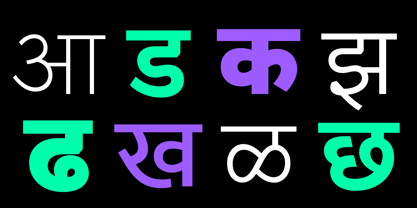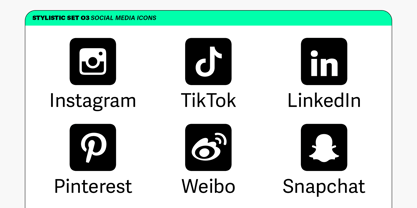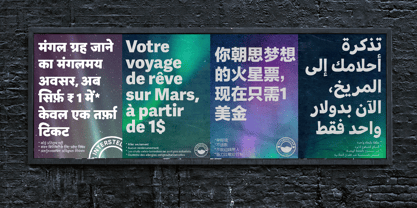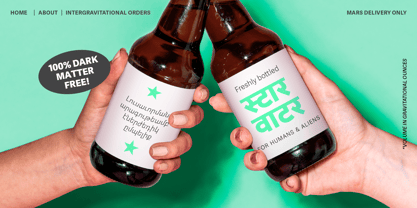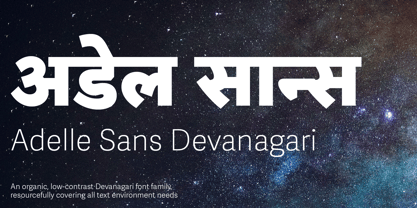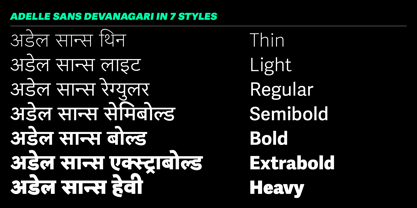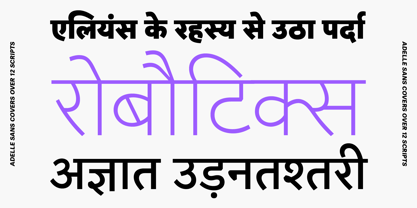
Adelle Sans Devanagari
by TypeTogether
The Adelle Sans Devanagari Font Family was designed by Veronika Burian, José Scaglione, Vaibhav Singh, Erin McLaughlin, Pooja Saxena and published by TypeTogether. Adelle Sans Devanagari contains 7 styles and family package options. More about this family
The original Adelle Sans, Jose Scaglione and Veronika Burian’s award-winning sans serif, provides a more clean and spirited take on the traditional grotesque sans. In 2013 Veronika and Jose began a Devanagari project during a concentrated course at the University of Reading (UK). Erin McLaughlin and Vaibhav Singh continued consultancy and design a few years later, and the Adelle Sans Devanagari family came into its own when Pooja Saxena joined TypeTogether in 2017. In all, this family is the culmination of five years of sweating the details.
Adelle Sans Devanagari translates the Latin’s forms into the voice of over 400 million people, or over 1/3 of all India. As is typical with TypeTogether typefaces, the most demanding editorial design problems were taken into consideration when creating Adelle Sans Devanagari. The combination of lively character and unobtrusive appearance inherent to grotesque sans serifs make it an utterly versatile tool for every imaginable situation. Whether for branding, signage, editorial, or advertising, the keyword behind Adelle Sans Devanagari’s use is flexibility.
Adelle Sans Devanagari is TypeTogether’s first Indic and Devanagari offering. It is available in seven weights that capitalise on legibility and provide the designer a wide range of text emphasis within their layout. By creating weights from Thin to Heavy, the Devanagari is a perfect counterpart to the Latin in tone, vertical proportions, and functionality. This ensures harmony between both type families in the same block of text and a pleasing change of texture when used at similar point sizes.
Rooted in the belief that broad language support is crucial to modern type design, Adelle Sans Devanagari is yet another push in TypeTogether’s ongoing multilingual efforts. Adding language support is not a simple act of matching geometry stroke for stroke; each script must harmonise with the others while still maintaining its own identity. Devanagari script has more round shapes than Latin, with connected, arched, and flowing strokes. It also has deeper vertical metrics and a headline that makes drawing heavy weights a challenge. Adelle Sans Devanagari is therefore rounder and significantly more complex than its Latin counterpart. The Adelle family’s naturally clean and spirited shapes lend themselves to a graceful Devanagari translation of the Latin’s colour and feel, matching the overall functionality, purpose, and cultural awareness.
Across the entire multilingual family — Latin, Arabic, Armenian, Cyrillic, Greek, now Devanagari, and with more on the way — each has been engineered to optically match the proportions of its counterparts. (Note: In addition to Devanagari, this font includes our full Latin character set, which supports hundreds of languages. Adelle Sans Devanagar’s exhaustive character set and OpenType support delivers consistent, flexible, and personable results in digital and printed multilingual documents and multicultural branding.
Adelle Sans Devanagari